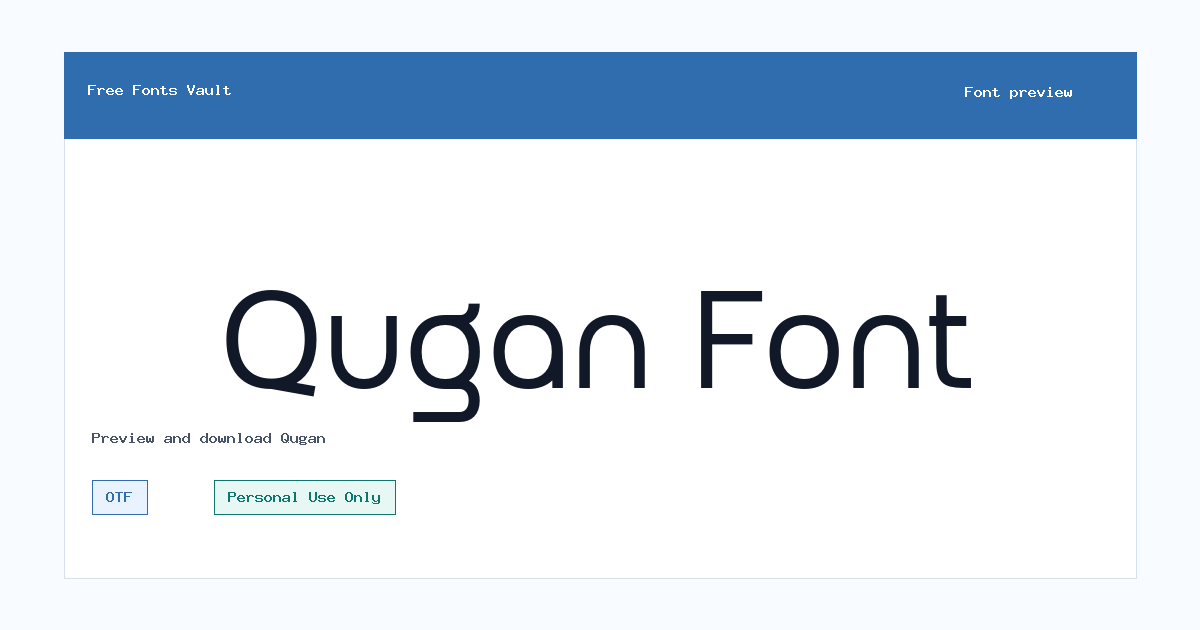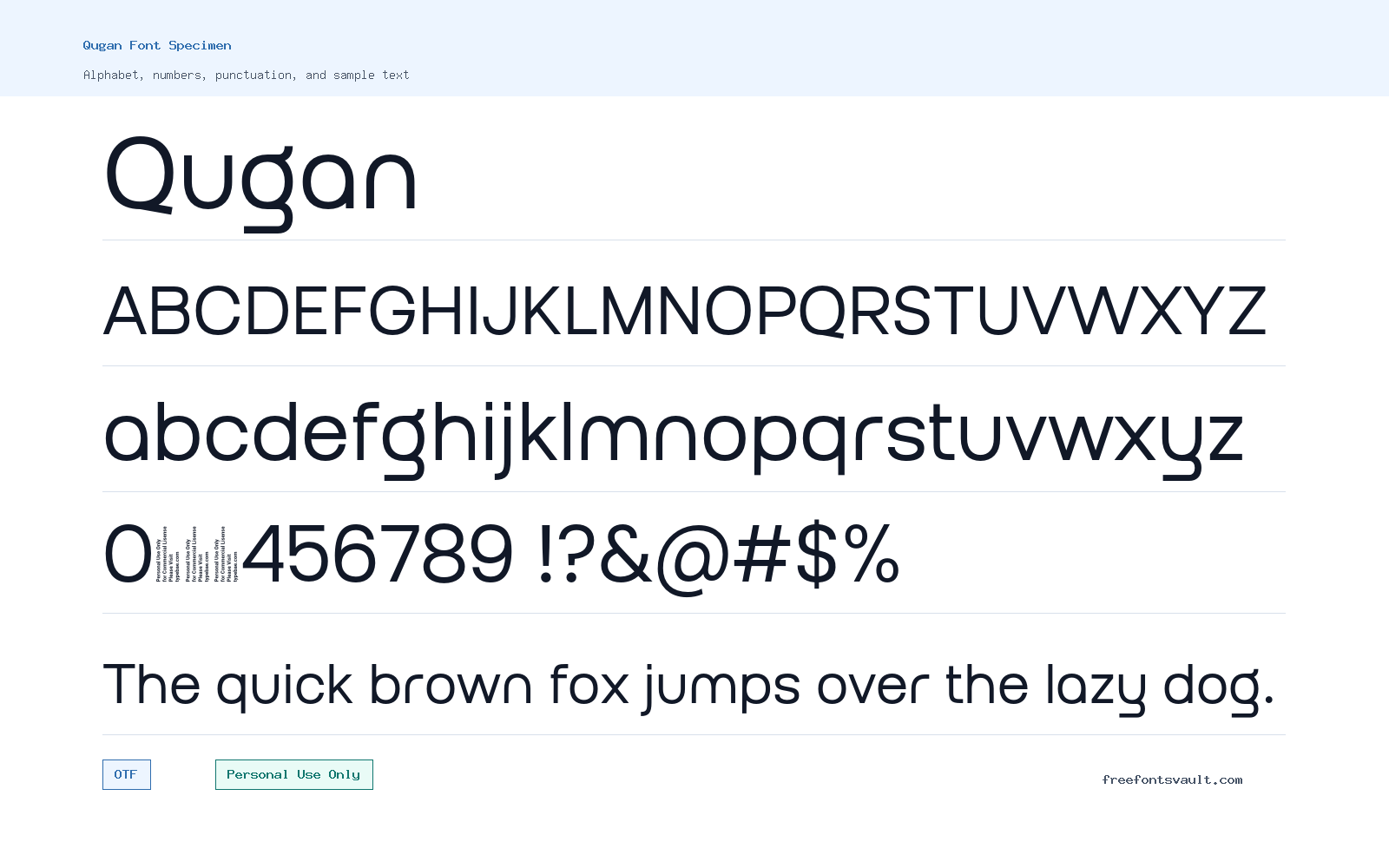
Qugan
Qugan Font
Qugan is a sans serif font by Iqbal Pauji with a Personal Use Only license. It is a practical choice to test when you need a clean display typeface for drafts, previews, and non-commercial design work.
About Qugan Font
Qugan is best approached as a modern sans serif for short, visible text rather than long reading passages. The regular OTF file gives you a straightforward starting point for testing headlines, logo concepts, poster titles, social graphics, packaging drafts, and web mockups. Because only one regular style is listed, it is most useful when your layout does not need a full weight range such as light, bold, italic, or condensed versions. Try it first in larger sizes where the shapes have room to show clearly.
For designers, Qugan can work well in early identity studies, mood boards, landing page mockups, presentation covers, and promotional layouts where a simple sans serif voice is needed. Keep the setting clean and avoid overloading it with too many effects. If you use it for a logo draft, test the wordmark in black and white, at small sizes, and beside icons or symbols before deciding whether it fits the project. For posters and thumbnails, check spacing carefully, especially in all-caps settings or tight titles. For web mockups, use it as a visual test font unless you have confirmed the final project license allows the intended use.
• Sans serif style suited to short display text, headings, mockups, and visual experiments.
• Single listed style, making it simple to test but less flexible than a full multi-weight family.
• Good candidate for non-commercial logo studies, posters, social graphics, and branding drafts.
• Logo concepts and wordmark drafts for personal or internal exploration
• Poster titles, cover text, and social media graphics
• Website hero mockups, app screens, and presentation layouts
• Brand mood boards and typography studies
• Short headlines, labels, and display text where readability can be checked at the intended size
Use Qugan in the preview tool with the exact words you plan to design. Test uppercase and lowercase, spacing, numbers, and punctuation before downloading. For logo work, compare it against a neutral sans serif and a more expressive display font to see whether Qugan gives enough character without hurting clarity. For posters, keep line lengths short and increase tracking only if the letters feel crowded. For web or app mockups, pair it with a simple text face for body copy so Qugan can stay focused on titles and labels. Since the listed file is OTF, it should work in most common design programs, but always test it in your own software before committing to a layout.
What kind of font is Qugan?
Qugan is listed as a sans serif font. It is best tested for headings, logo drafts, posters, branding mockups, and other short-text design uses.
What should I pair with Qugan?
Pair it with a quiet, readable sans serif or serif for body text. Let Qugan handle the headline or logo area, then use the companion font for paragraphs, captions, and interface text.
Is Qugan good for long paragraphs?
It is safer to use Qugan for short text first. For long reading, test paragraph spacing, letter clarity, and screen rendering carefully, or pair it with a font designed for body copy.